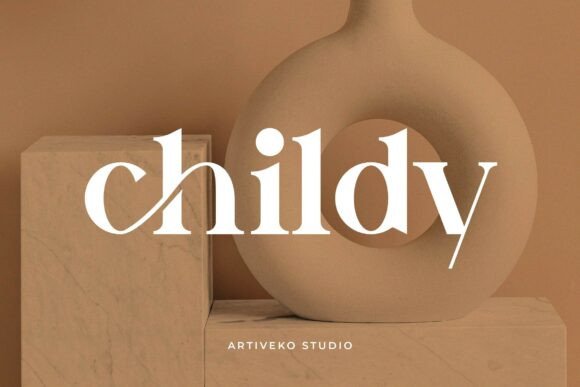
Introducing Childy Font: Elevate Your Design with Sophistication and Exclusivity
In the world of typography, fonts play a crucial role in conveying the tone and personality of a brand. For designers seeking to create luxurious and high-end visuals, a refined serif font is often the go-to choice. This is where Childy Font comes into play, a meticulously crafted typeface designed to bring sophistication and exclusivity to your design projects.
The Art of Childy Font: A Symphony of Elegance
Childy is a refined serif font that boasts high-contrast strokes, elegant curves, and carefully balanced proportions. This harmonious blend of design elements makes Childy perfect for luxury branding, premium packaging, fashion editorials, invitations, and upscale logo design. With Childy, you can add a touch of refinement and poise to your designs, setting them apart from the rest.
Key Features of Childy Font
- High-contrast strokes: Childy features dramatic contrast between thick and thin strokes, creating a sense of elegance and sophistication.
- Elegant curves: The font’s curves are carefully crafted to exude refinement and luxury, making it perfect for high-end designs.
- Carefully balanced proportions: Childy’s proportions are meticulously balanced to ensure optimal readability and aesthetic appeal.
Luxury Branding with Childy Font
Childy Font is an excellent choice for luxury branding projects. Its refined serif design and high-contrast strokes evoke a sense of exclusivity and sophistication, making it perfect for high-end brands. With Childy, you can create a strong visual identity that communicates luxury, elegance, and refinement.
Examples of Luxury Branding with Childy Font
- Fashion labels: Use Childy to create stunning fashion labels that exude luxury and sophistication.
- High-end jewelry brands: Childy’s elegant design makes it perfect for high-end jewelry brands seeking to convey exclusivity and refinement.
- Luxury hotels and resorts: Create a strong visual identity for luxury hotels and resorts with Childy’s refined serif design.
Premium Packaging with Childy Font
Childy Font is also an excellent choice for premium packaging designs. Its elegant curves and high-contrast strokes make it perfect for creating eye-catching packaging that stands out on store shelves. With Childy, you can add a touch of sophistication and luxury to your packaging designs, elevating your brand’s visual identity.
Examples of Premium Packaging with Childy Font
- Luxury food and beverage packaging: Use Childy to create premium packaging for luxury food and beverage products.
- High-end cosmetics packaging: Childy’s elegant design makes it perfect for high-end cosmetics packaging.
- Premium wine and champagne labels: Create stunning wine and champagne labels with Childy’s refined serif design.
Fashion Editorials and Invitations with Childy Font
Childy Font is also well-suited for fashion editorials and invitations. Its refined serif design and elegant curves make it perfect for creating visually stunning editorial content and invitations that exude luxury and sophistication.
Examples of Fashion Editorials and Invitations with Childy Font
- Fashion editorials: Use Childy to create stunning fashion editorials that showcase your brand’s style and sophistication.
- Luxury event invitations: Childy’s elegant design makes it perfect for luxury event invitations, such as weddings, galas, and charity events.
- Magazine and catalog design: Create visually stunning magazine and catalog designs with Childy’s refined serif design.
Upscale Logo Design with Childy Font
Childy Font is an excellent choice for upscale logo design projects. Its high-contrast strokes and elegant curves make it perfect for creating sophisticated and luxurious logos that communicate exclusivity and refinement.
Examples of Upscale Logo Design with Childy Font
- Luxury brand logos: Use Childy to create stunning logos for luxury brands that exude sophistication and exclusivity.
- High-end service logos: Childy’s elegant design makes it perfect for high-end service logos, such as luxury consulting firms and exclusive financial institutions.
- Upscale product logos: Create visually stunning logos for upscale products, such as luxury watches and high-end jewelry.
In conclusion, Childy Font is a refined serif font designed to bring sophistication and exclusivity to your design projects. With its high-contrast strokes, elegant curves, and carefully balanced proportions, Childy is perfect for luxury branding, premium packaging, fashion editorials, invitations, and upscale logo design. Whether you’re a designer, brand owner, or marketing professional, Childy Font is an excellent choice for creating visually stunning designs that communicate luxury and refinement.